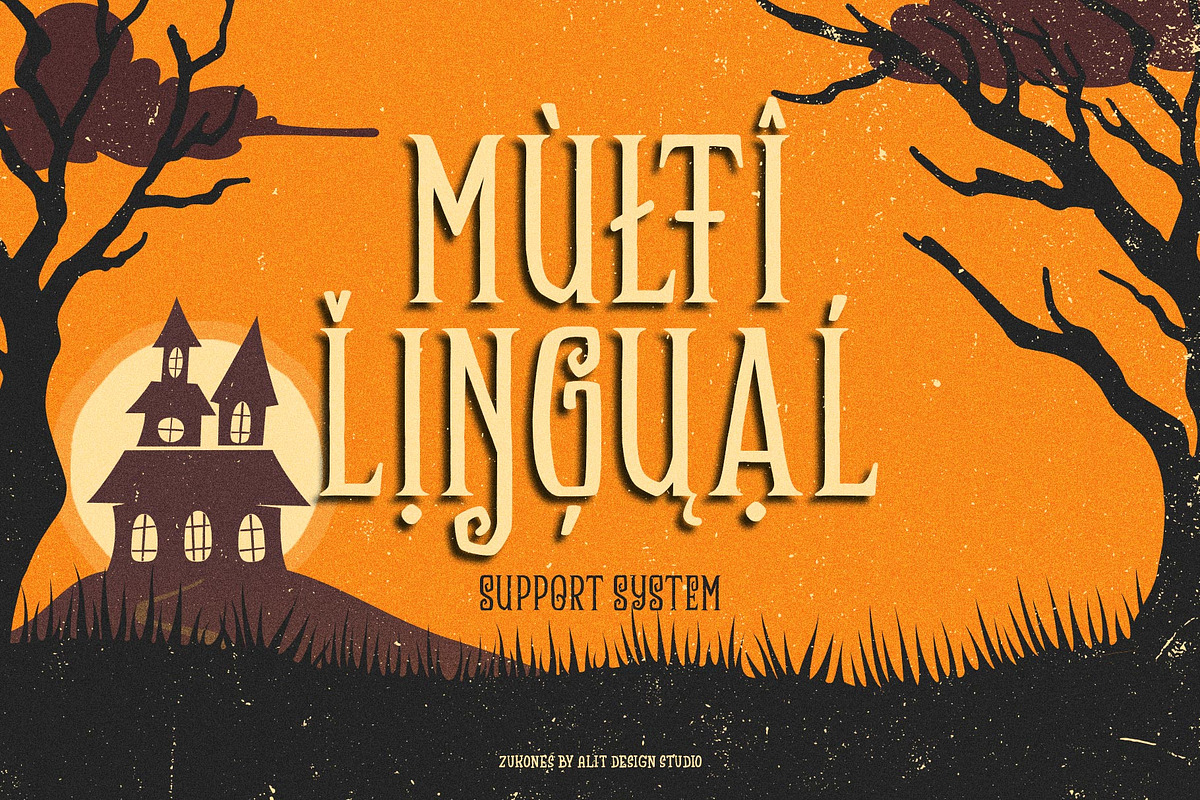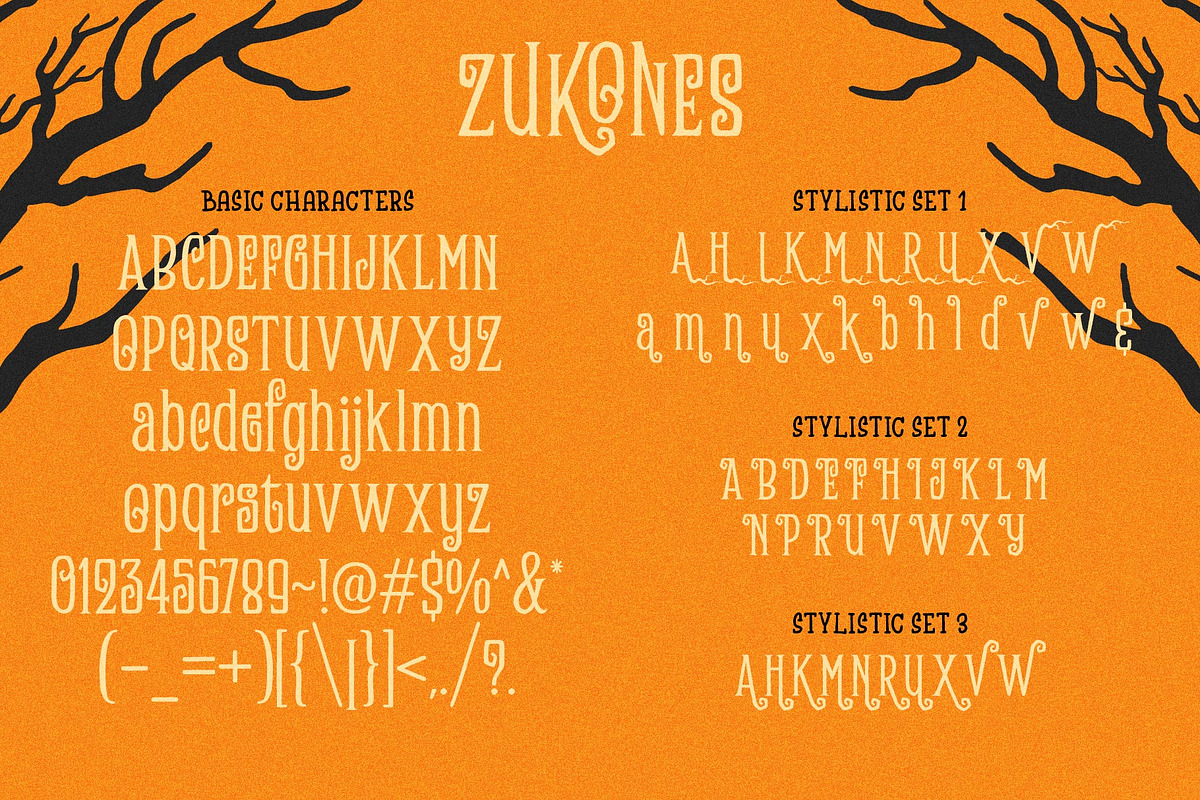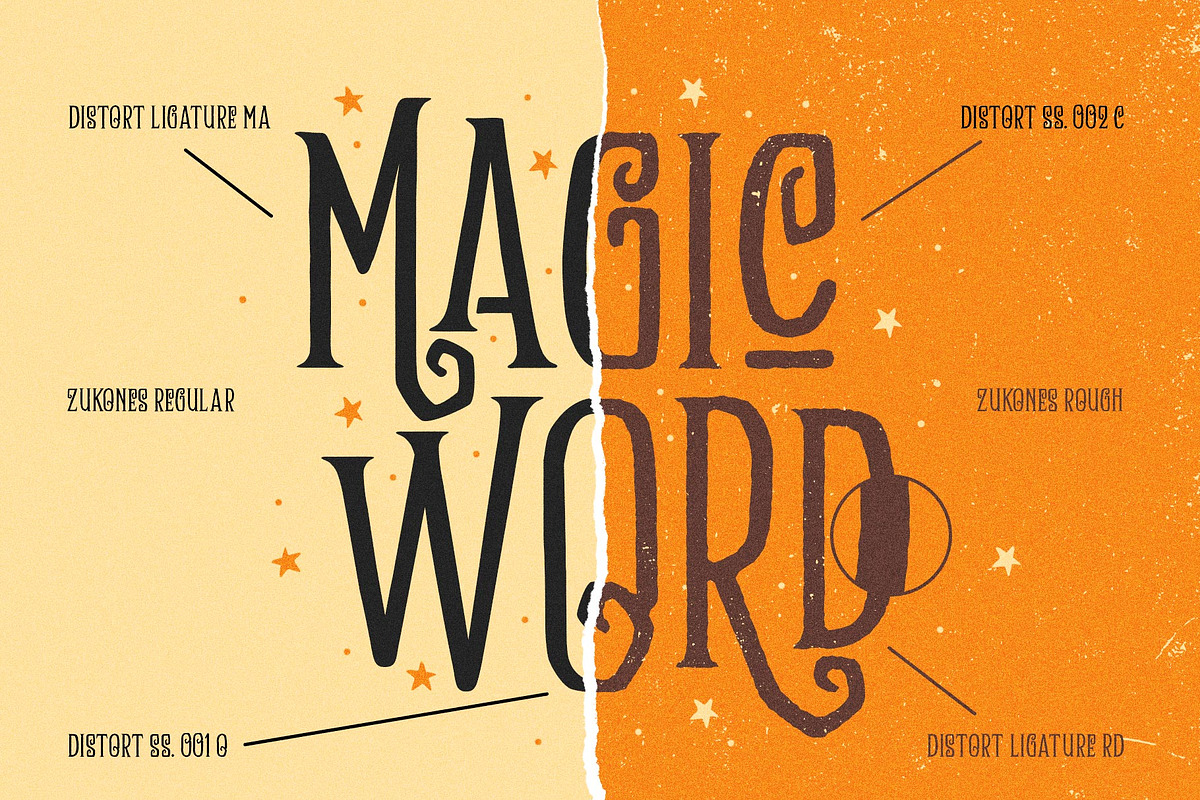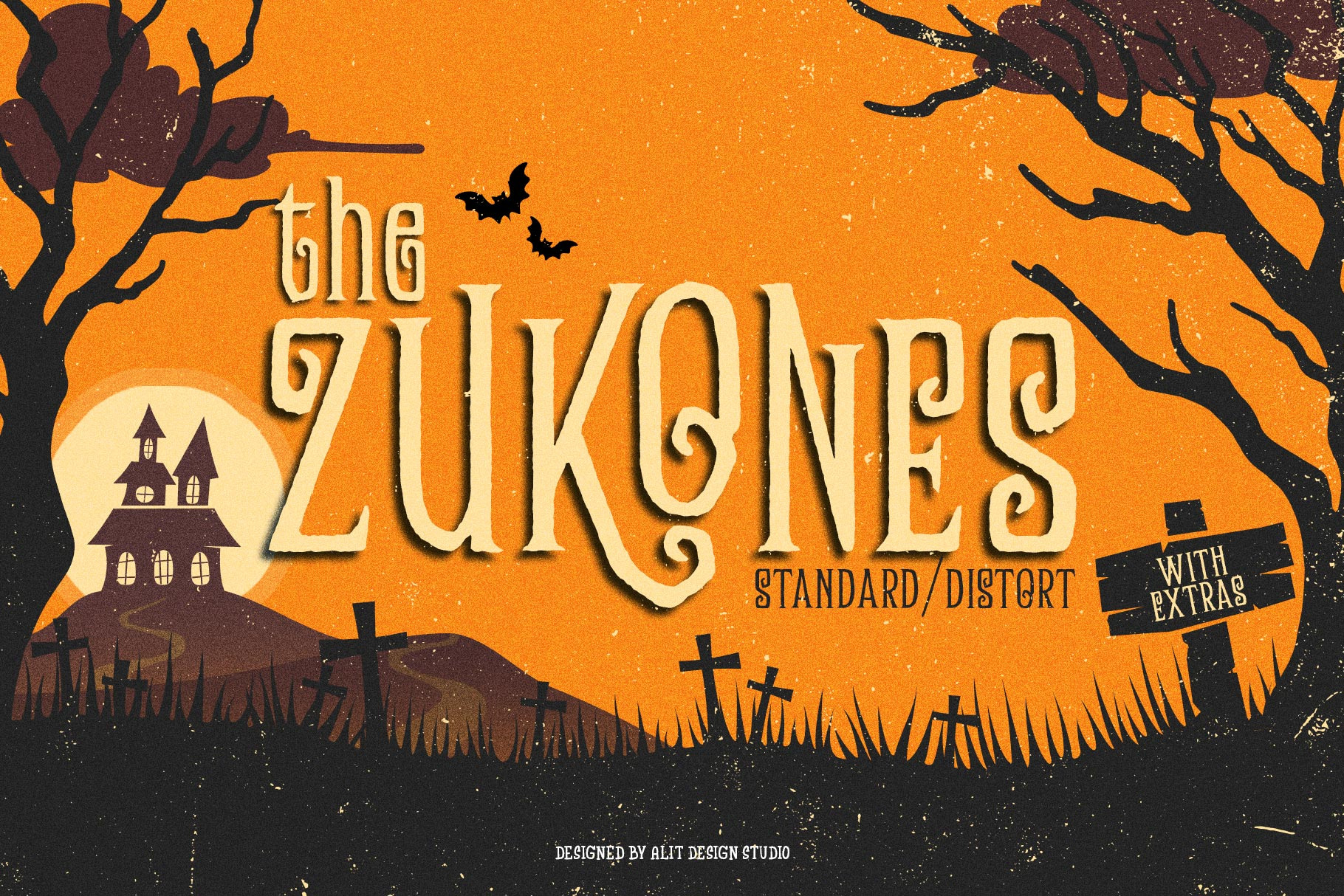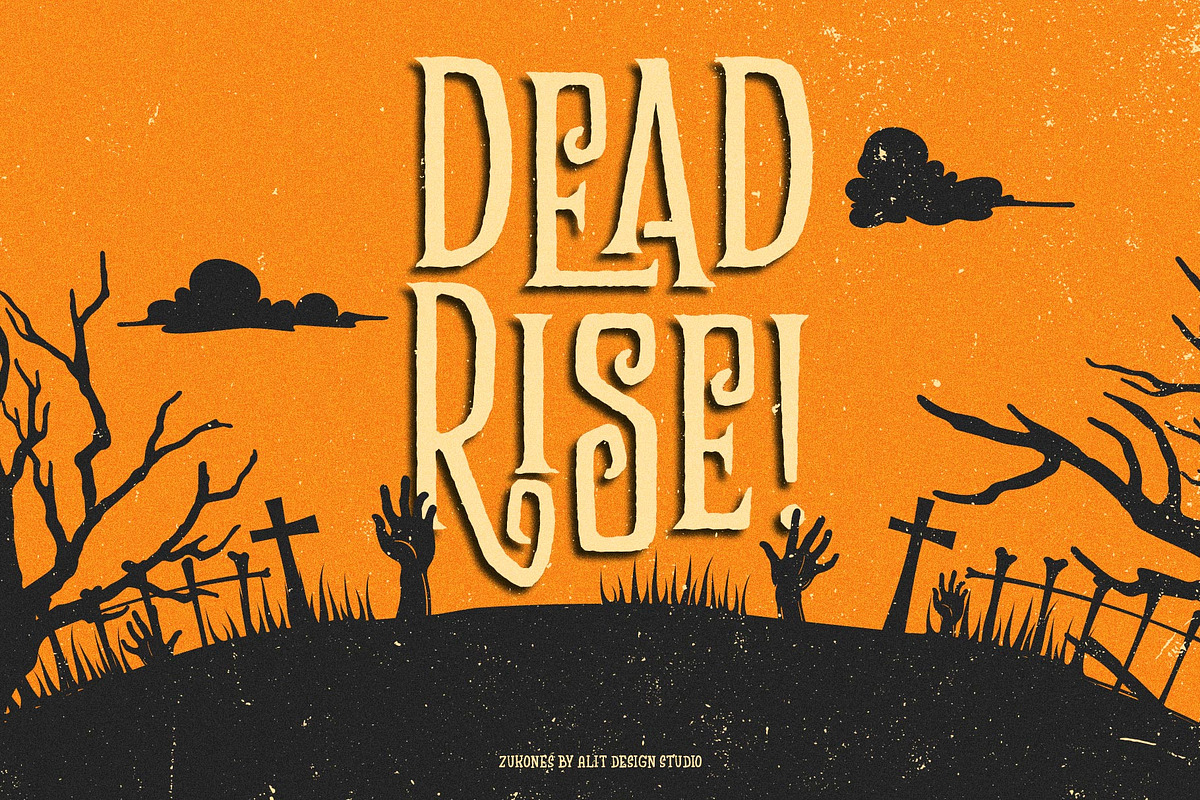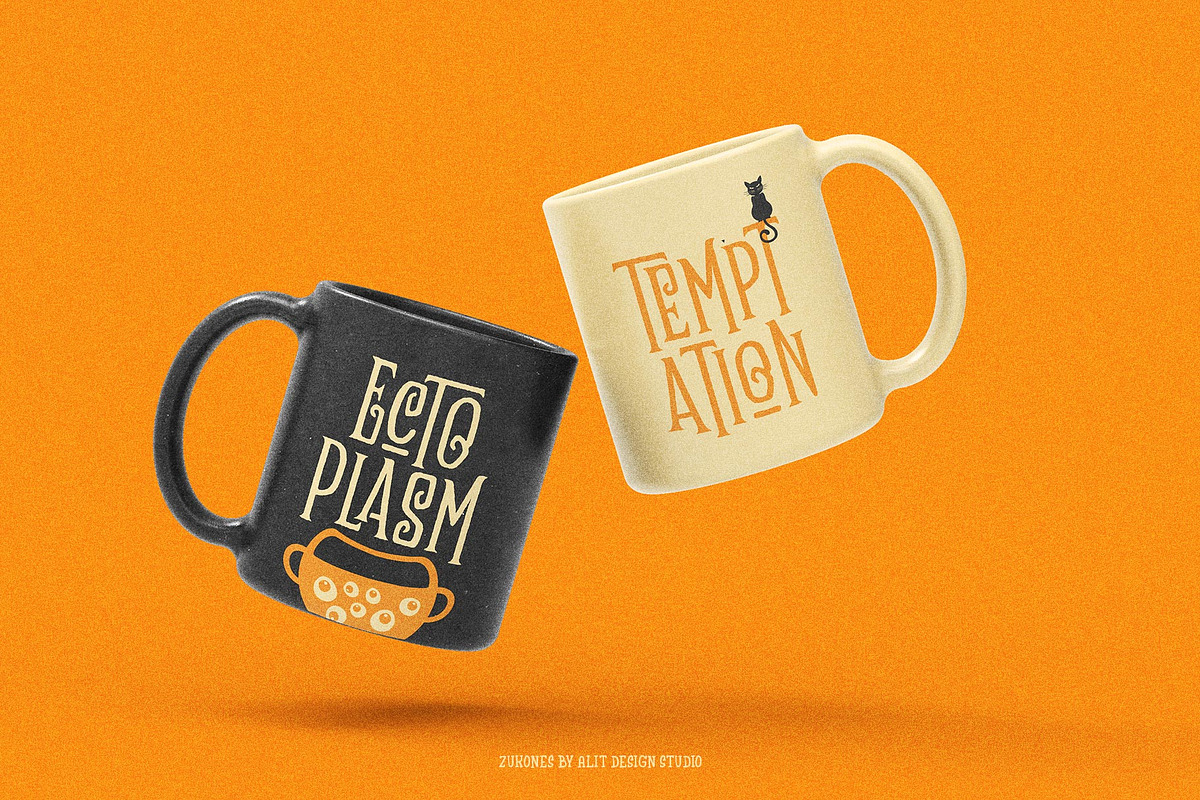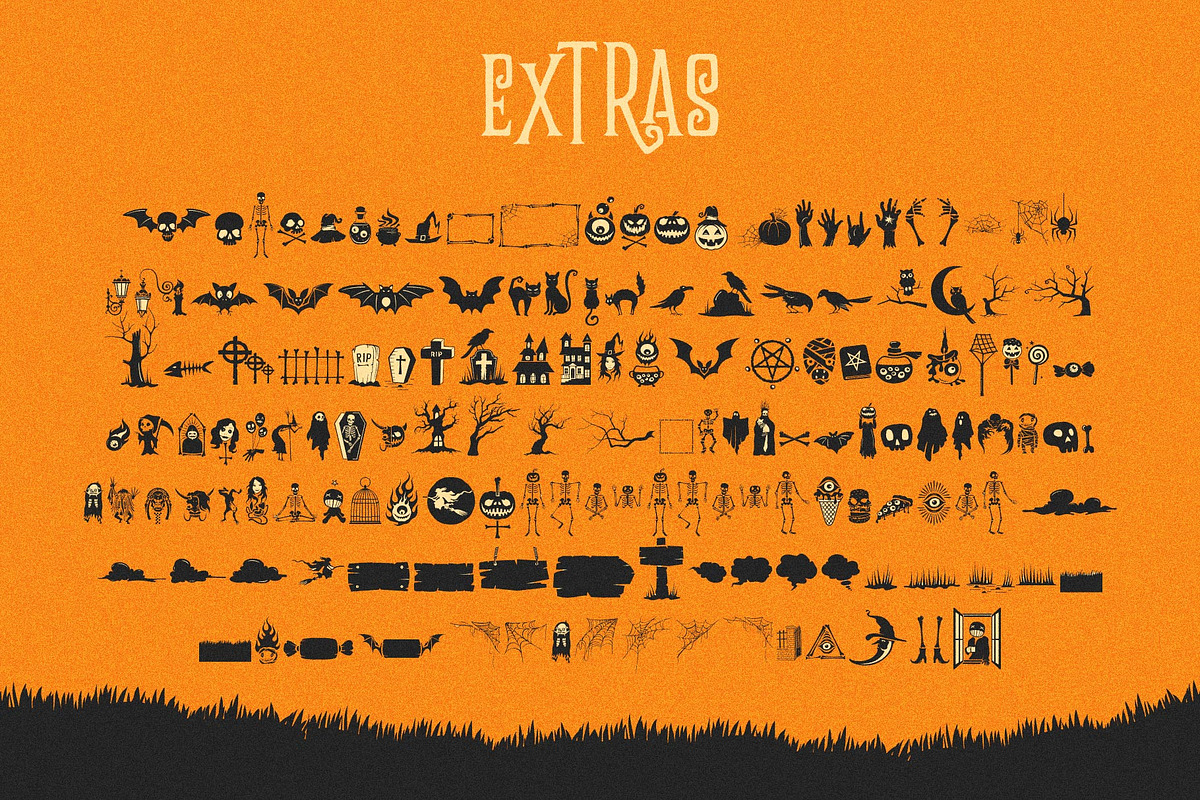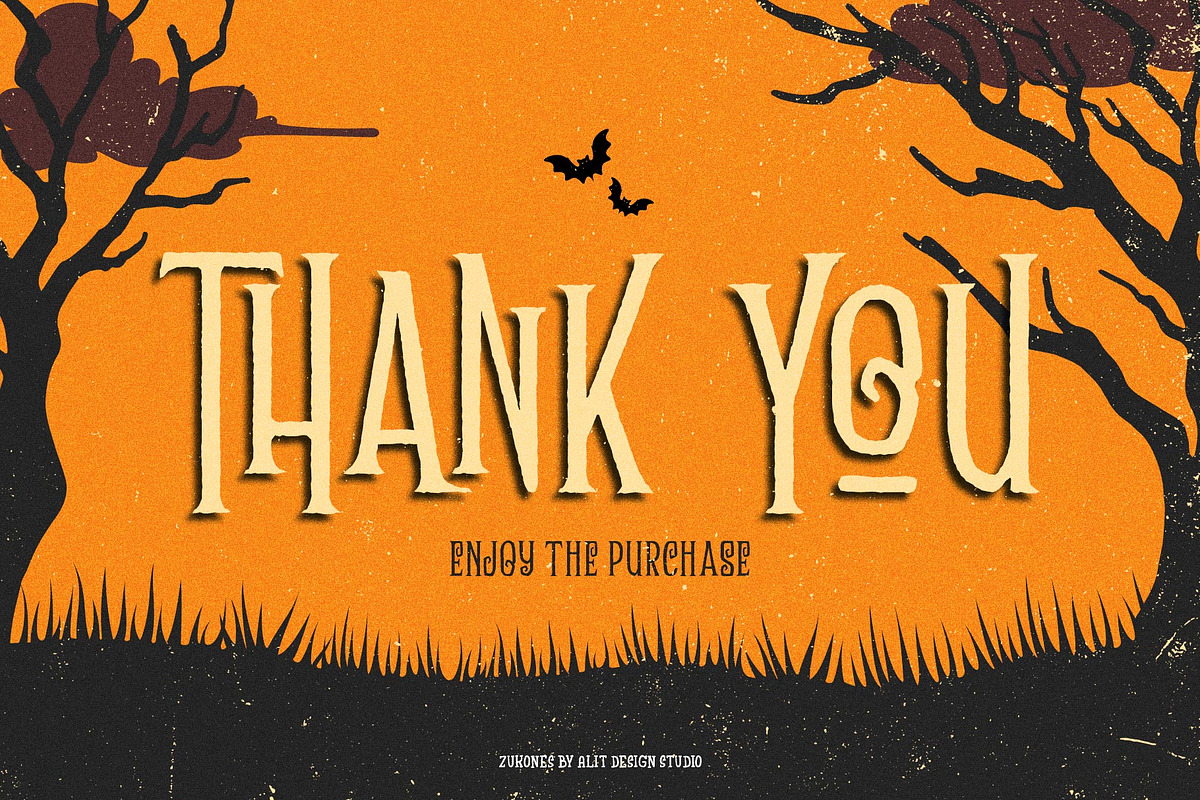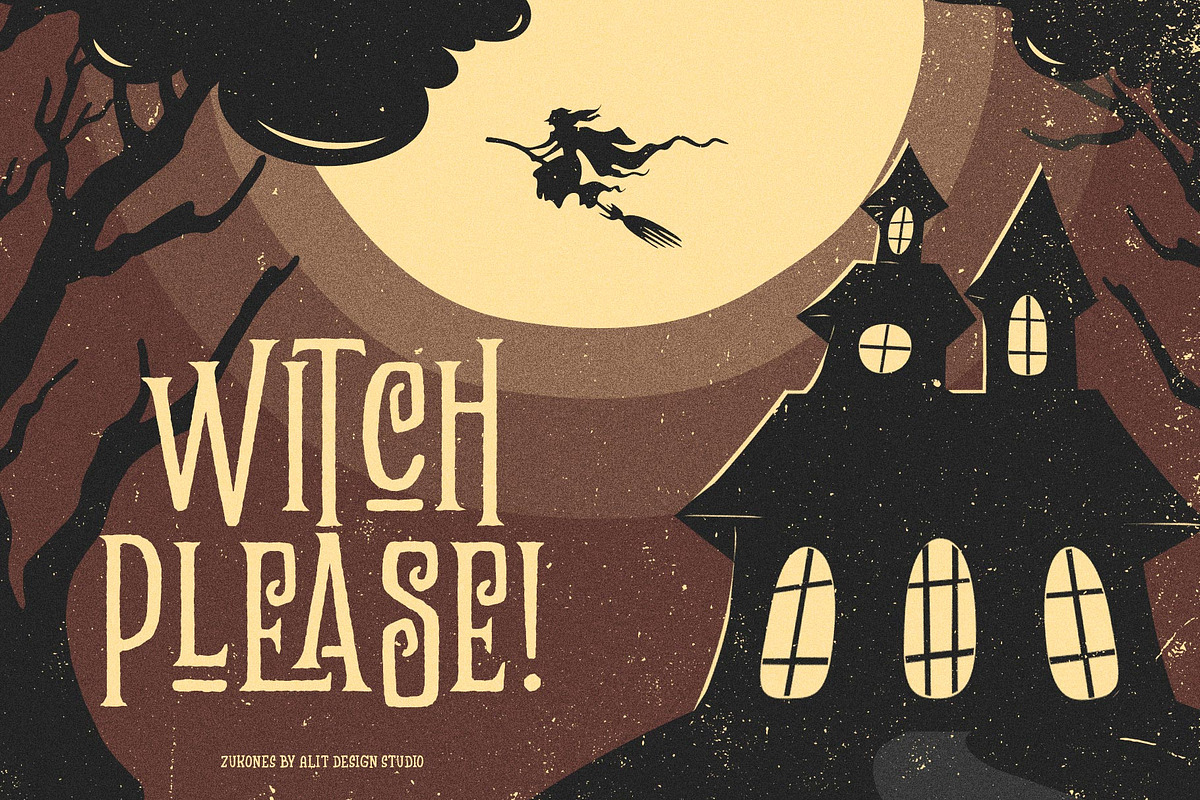
The Zukones Halloween Font
Presenting the 🎃 The Zukones Halloween Typeface 🦇 by alitdesign.
The Zukones Halloween Typeface is designed for the needs of design concepts themed about Halloween and events in October and November. The Zukones Halloween Typeface has a horror character with a character shaped like distortion character, making the horror Halloween themed design concept even better and unique.
The Zukones Halloween Typeface also gets a bonus character of 150 Halloween-themed illustrations that make creating designs even easier. Simply by downloading The Zukones Halloween Typeface, creating a Halloween themed design is very quick and easy.
The Zukones Halloween Typeface is perfect for magazine cover designs, brochures, flyers. Instagram ads, Canva Design and so on with halloween and dark concepts. besides that this font is very easy to use both in design and non-design programs because everything changes and glyphs are supported by Unicode (PUA).
The Zukones Halloween Typeface contains 663 + 150 bonus glyphs with many unique and interesting alternative options.
Language Support : Latin, Basic, Western European, Central European, South European,Vietnamese.